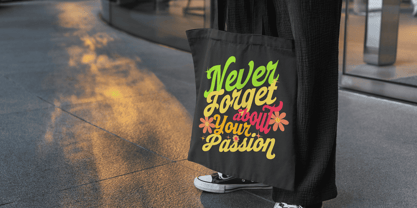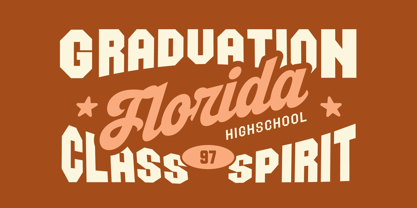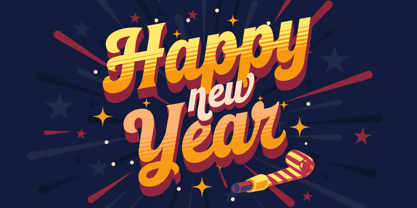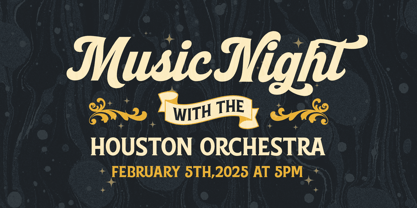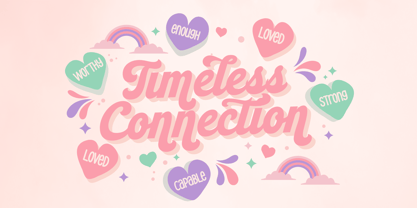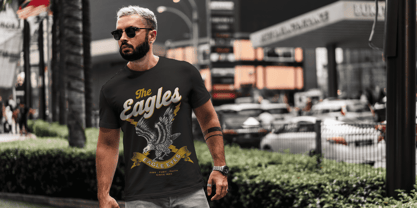
Newpitch Script
Newpitch Script is a retro script font with a smooth, flowing feel. Its slanted characters evoke the design of vintage signage and the spirit of mid-20th century sport branding.
Use underscore _ anywhere in a word to make an underline.
Example: Super_star
Use multiple underscores to make longer swashes.
Example: Base____ball
The thick, even strokes and rounded terminals give it a soft and approachable appearance. The letters connect fluidly, creating a dynamic rhythm across words, much like a custom logo. Its elegant curves would make it suitable for athletic posters, product logos, and anything needing a friendly yet distinguished flair.
The font is built with advanced OpenType functionality and guaranteed top-notch quality, containing stylistic and contextual alternates, ligatures and more automatic and manual features; all to give you full control and customizability.
It has extensive lingual support, covering all Latin-based languages, from North Europa to South Africa, from America to South-East Asia. It contains all characters and symbols you'll ever need, including all punctuation and numbers.
Mans Greback designed this font with a vintage style in mind, wanting a smooth and casual feeling, creating a type that blends retro aesthetics with contemporary readability.